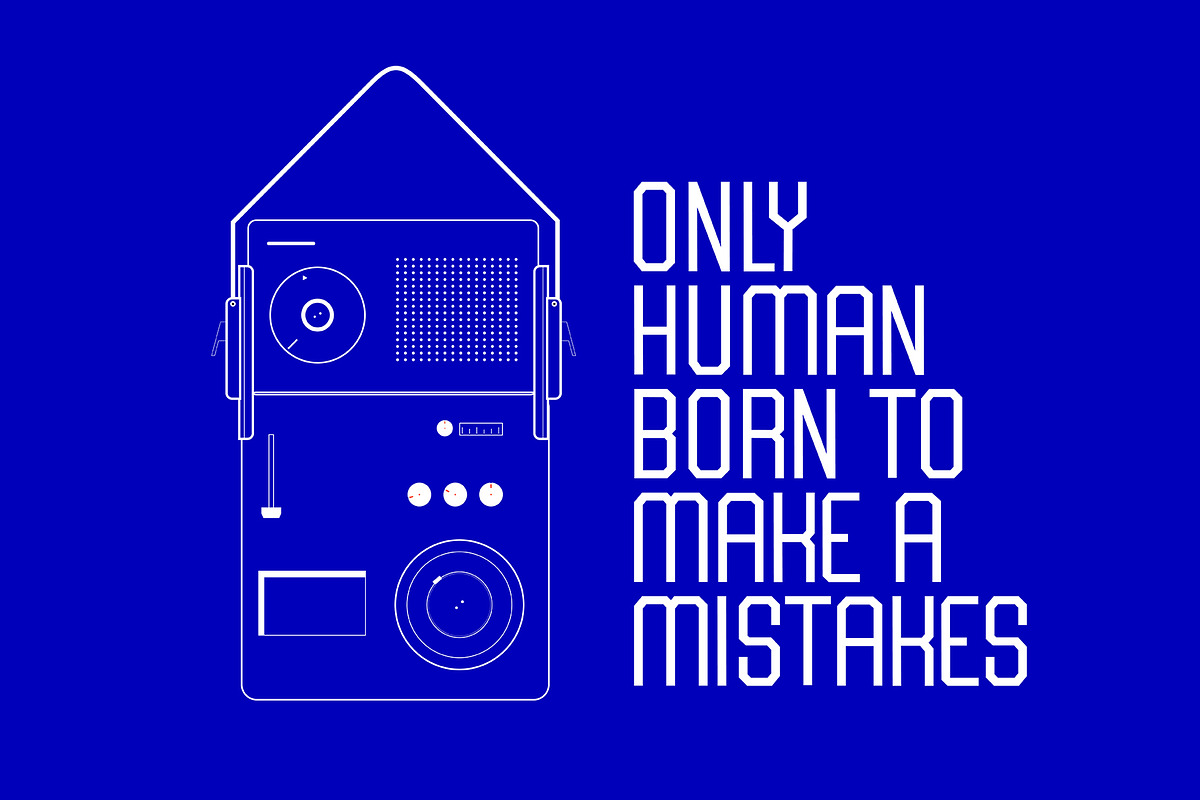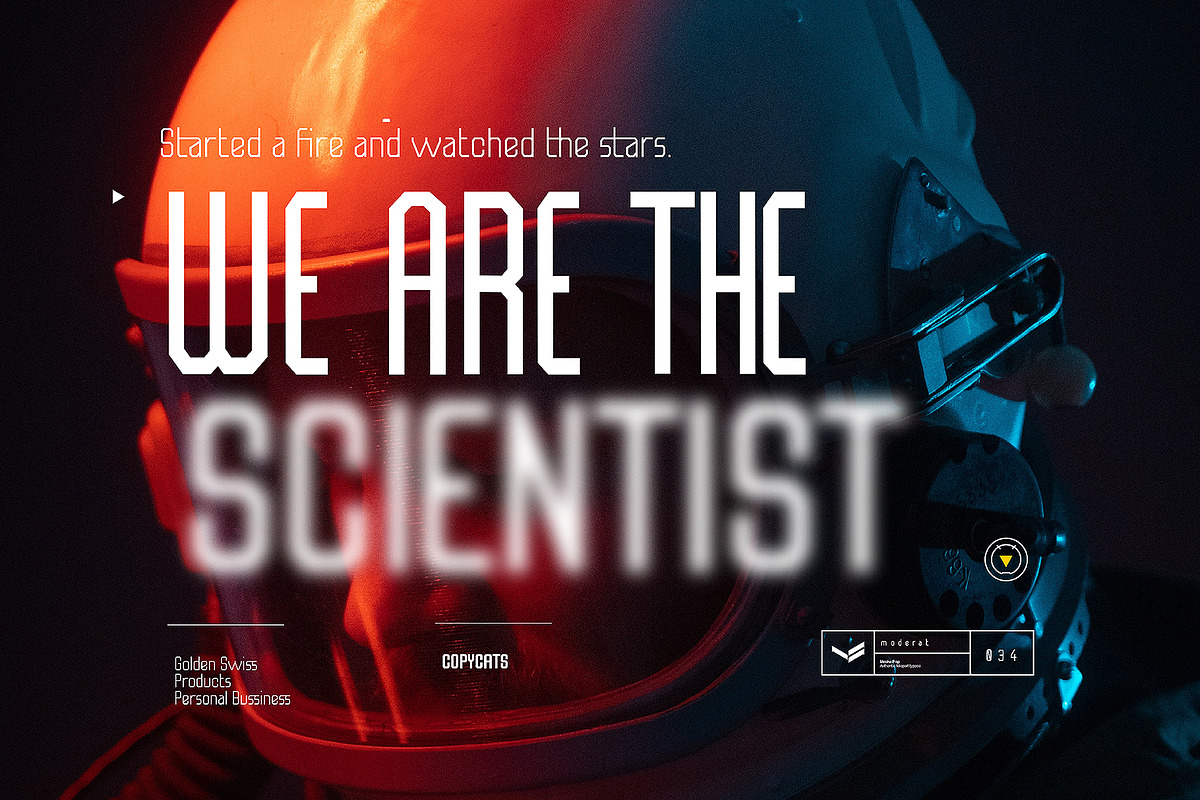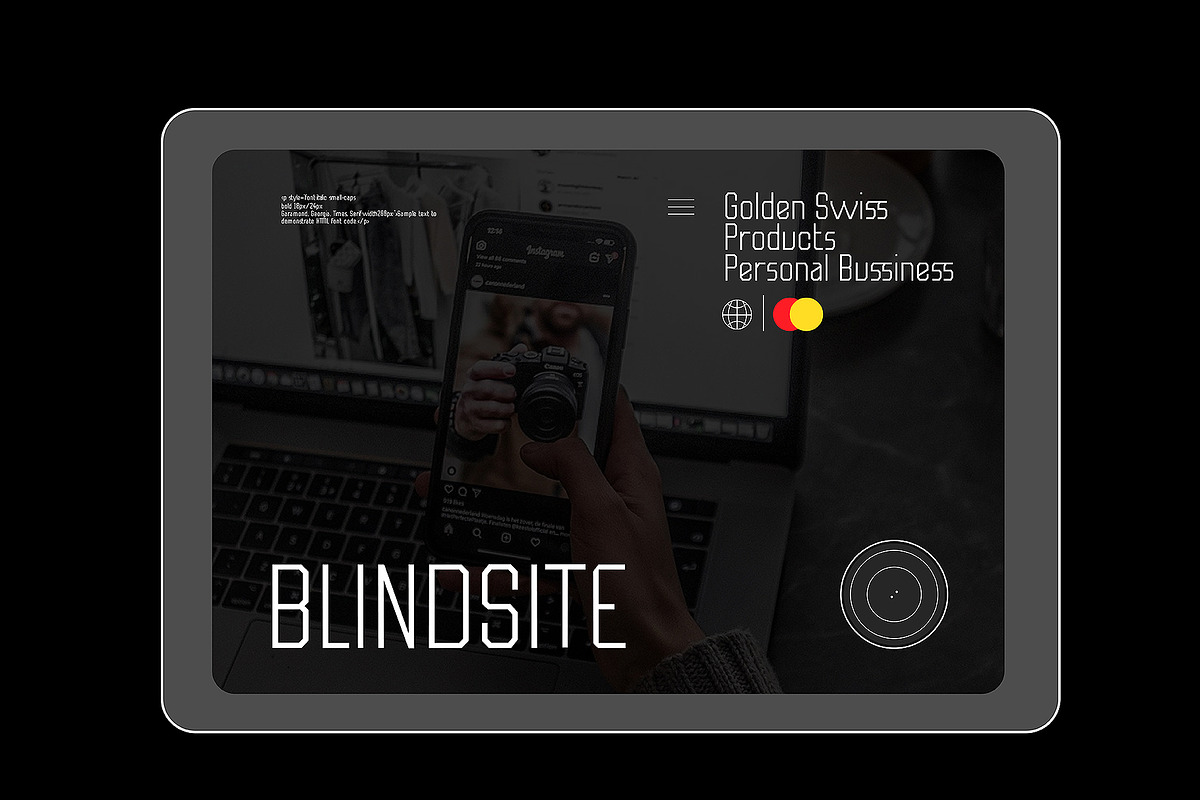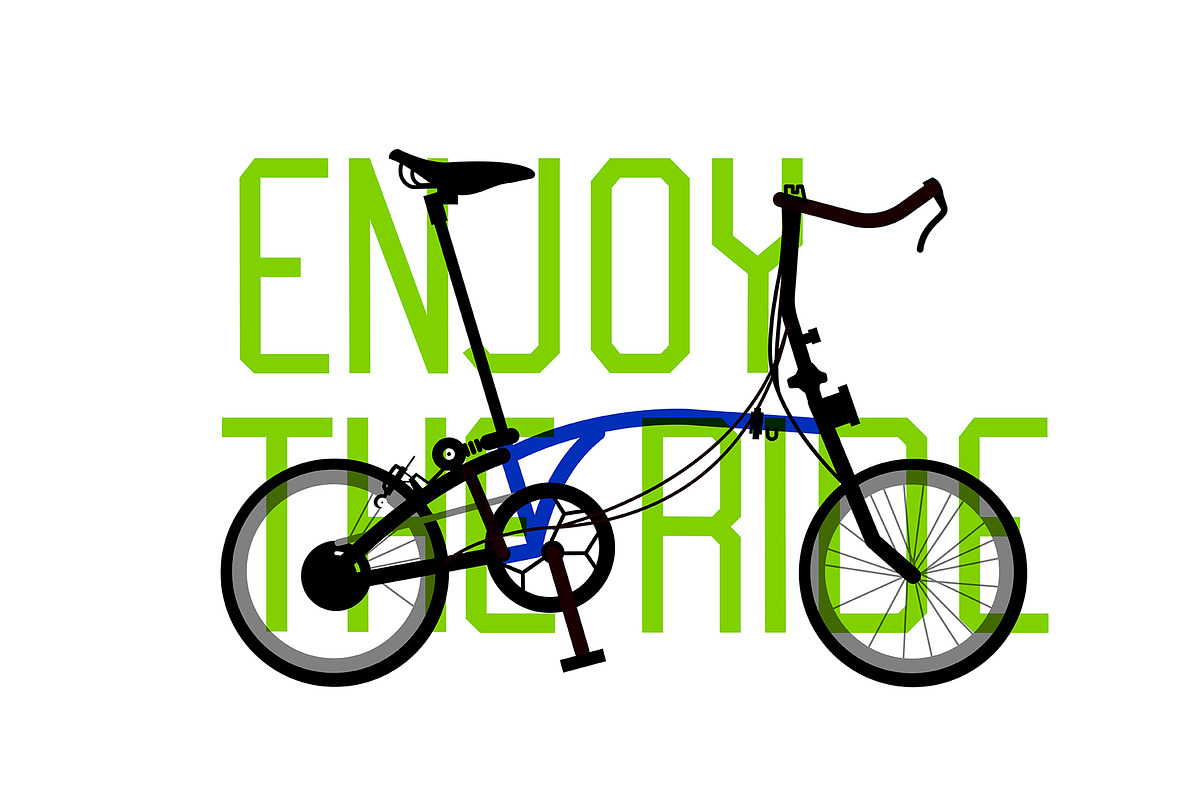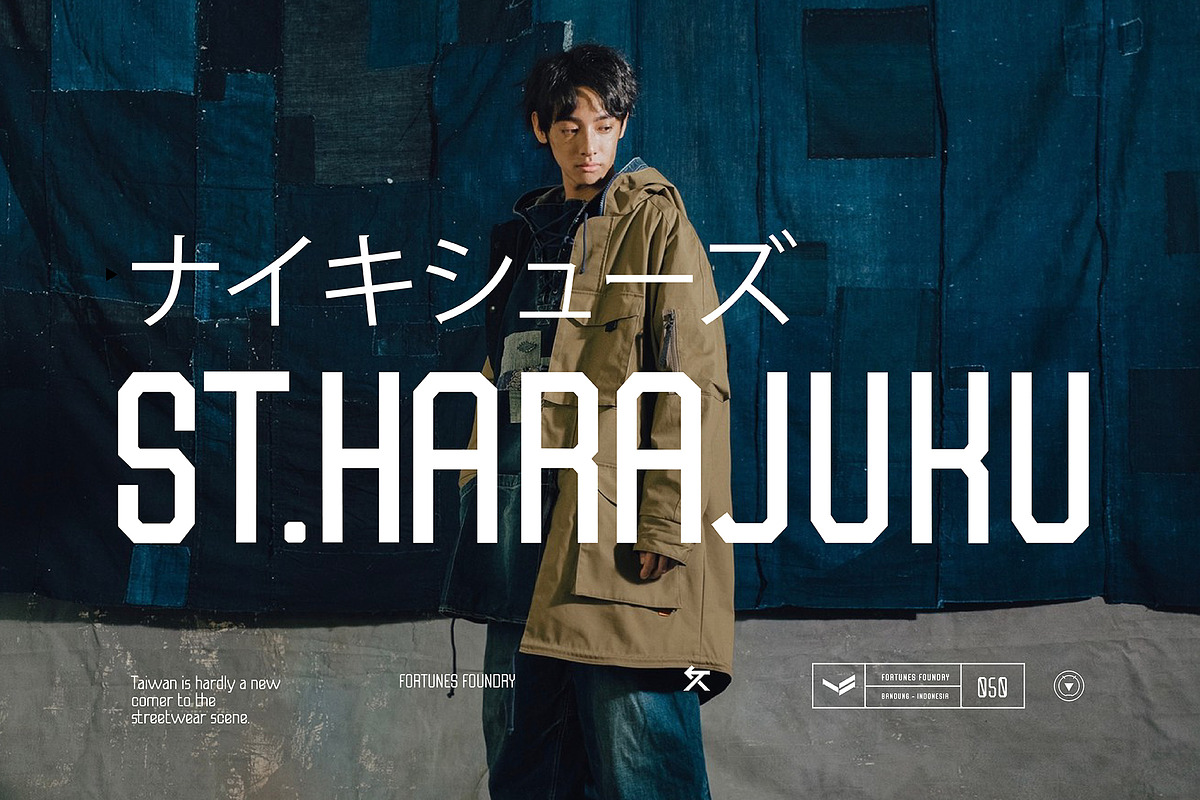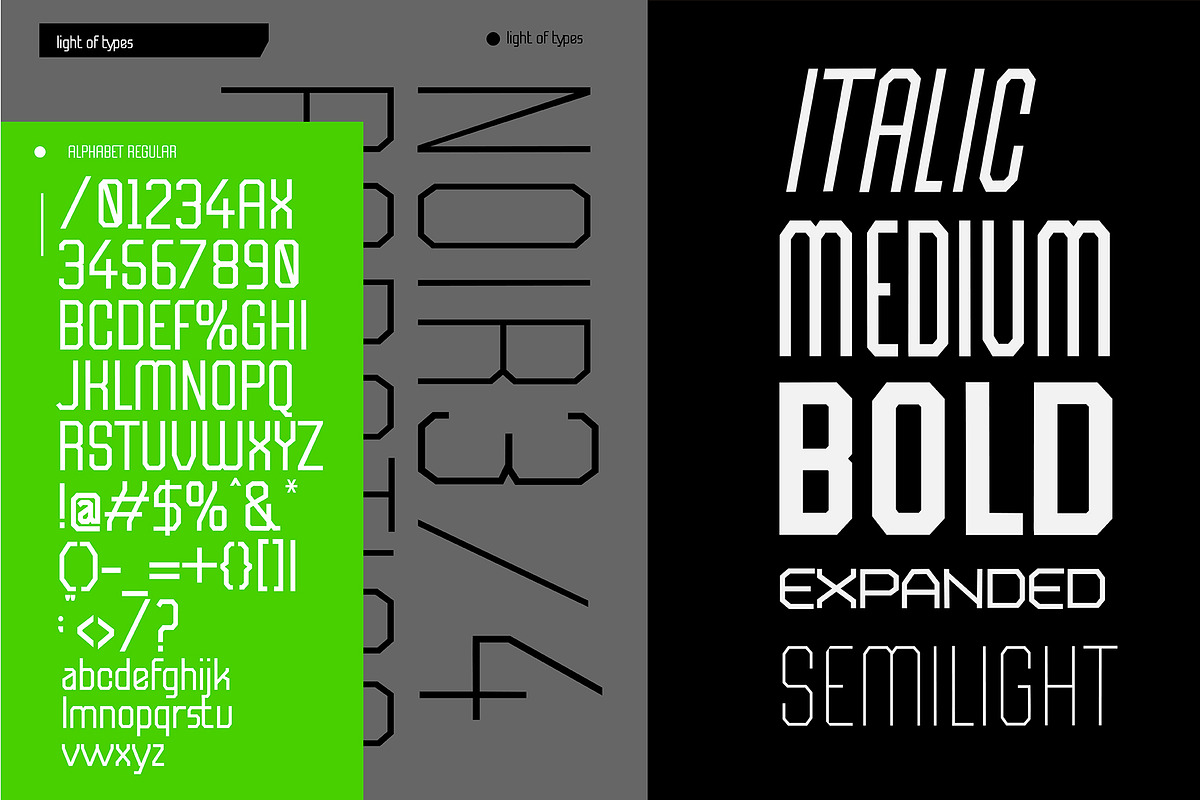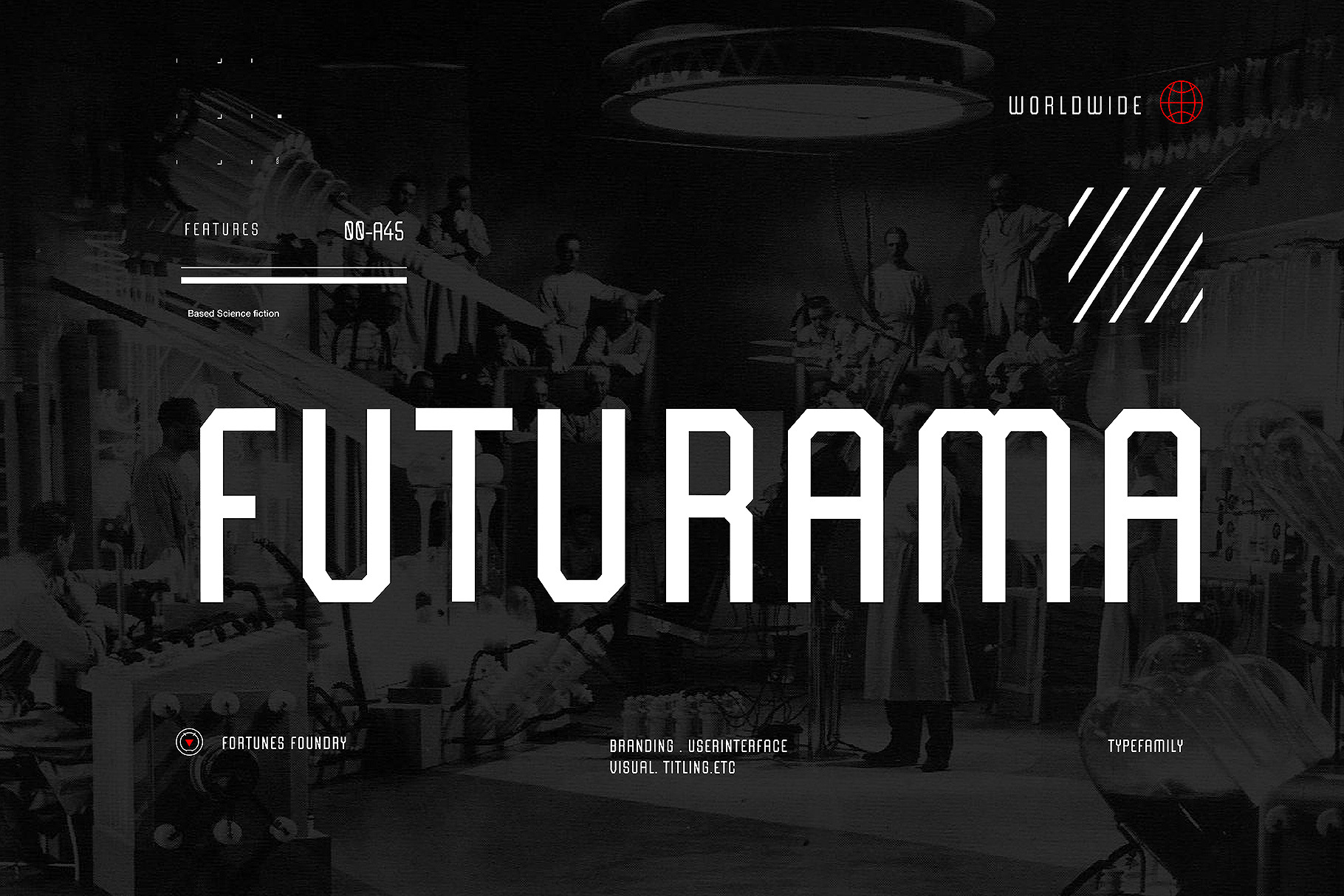
Futurama Modern Titling Fonts
Futurama is a bold and unique display font. Masterfully designed to become a true favorite character, you could used for user interface, titling, branding, logo, film title, big title, promotion, etc.